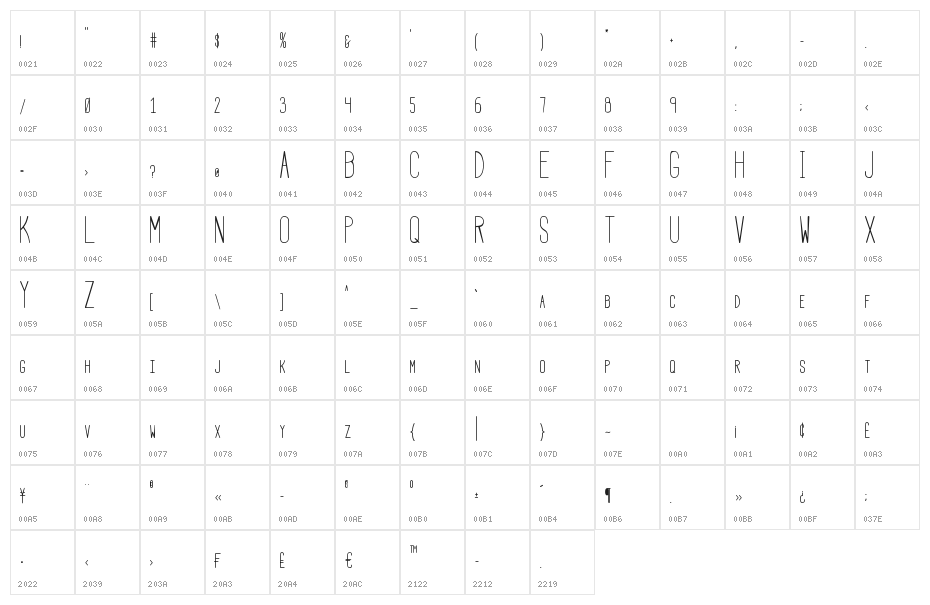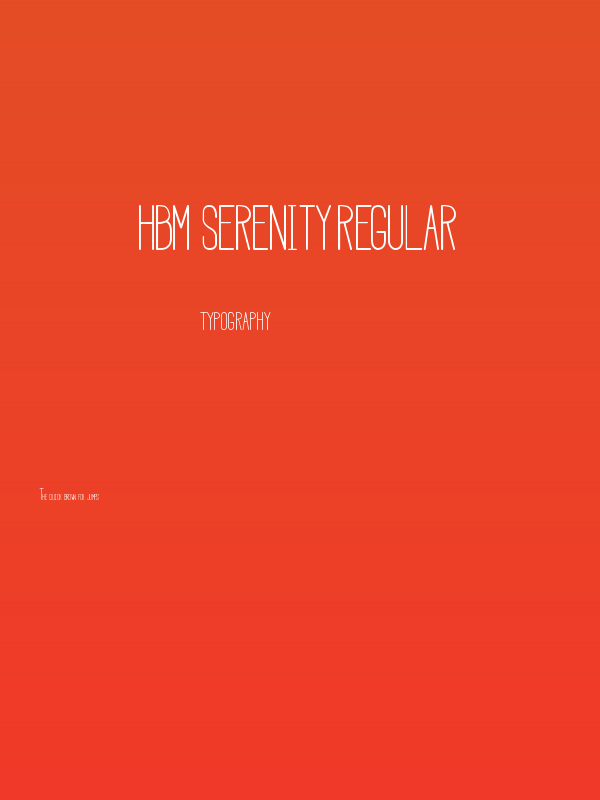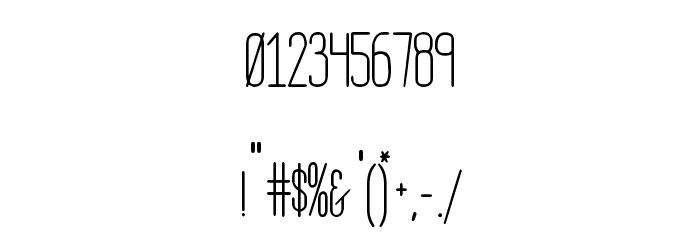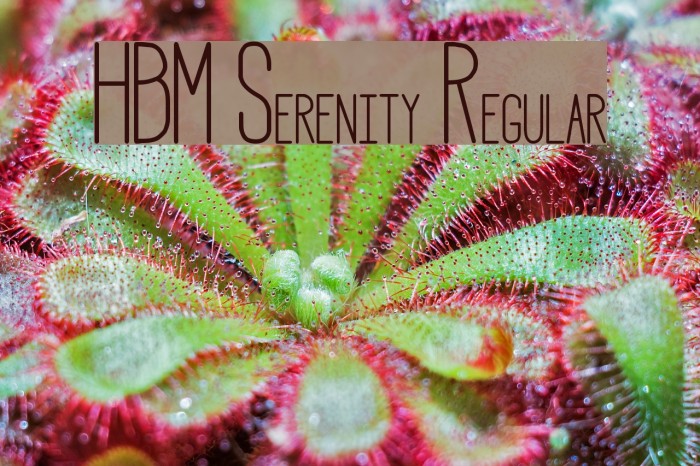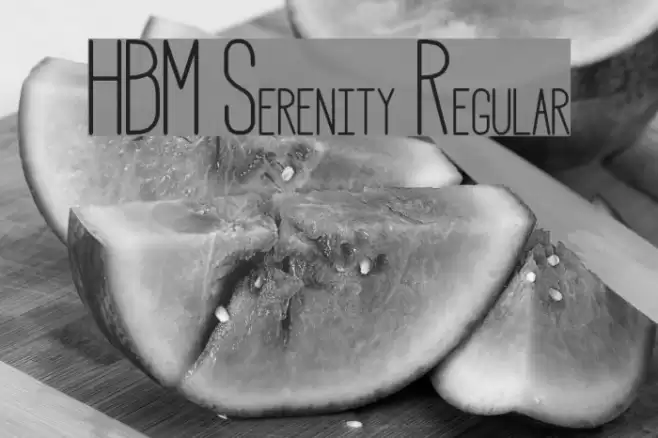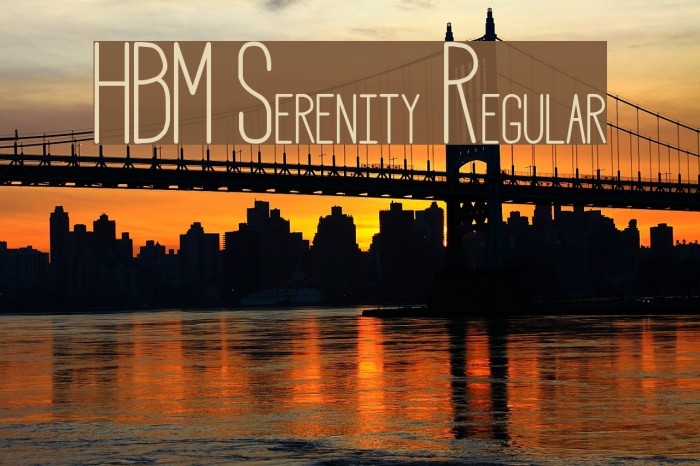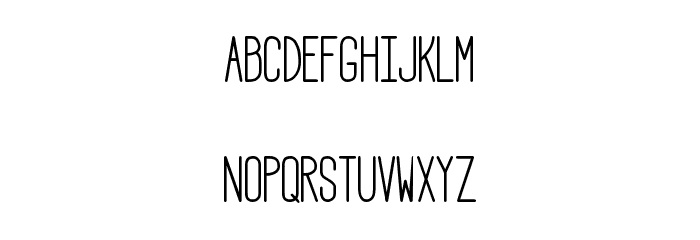
HBM Serenity Regular Font
HBM Serenity Regular Description
This font features a clean and modern design with elongated, narrow characters that give it a sleek and sophisticated appearance. The uppercase and lowercase letters maintain a consistent height, contributing to a uniform look. The numerals are distinct and easily readable, while the special characters are elegantly integrated, maintaining the overall aesthetic. The font's thin strokes and minimalistic style make it suitable for contemporary designs, offering a sense of elegance and clarity.
| Proposed Projects | Ideal for fashion magazines, modern branding, minimalist posters, and elegant invitations. |